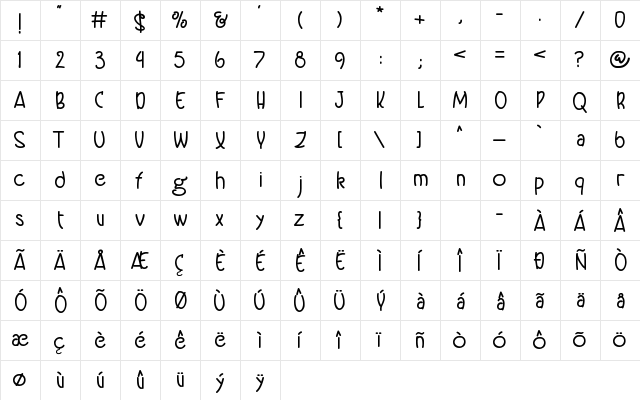
Bottler Shake Regular
| Designer | JujunGag 2020 |
Design Context for Bottler Shake Typeface
Bottler Shake is a composed and adaptable typeface that performs quietly and consistently across a wide range of design contexts.